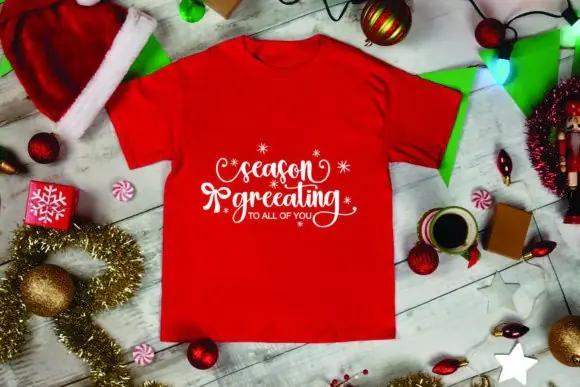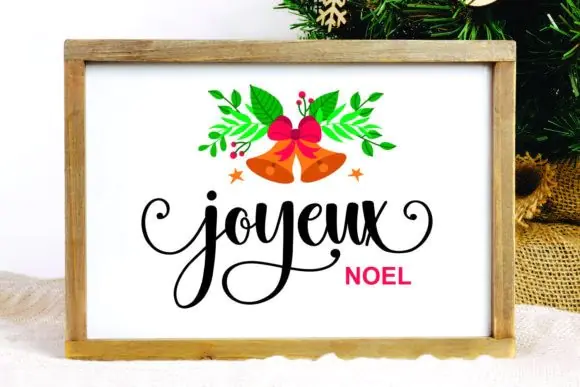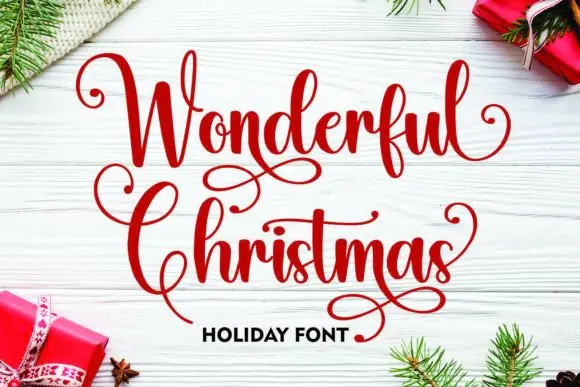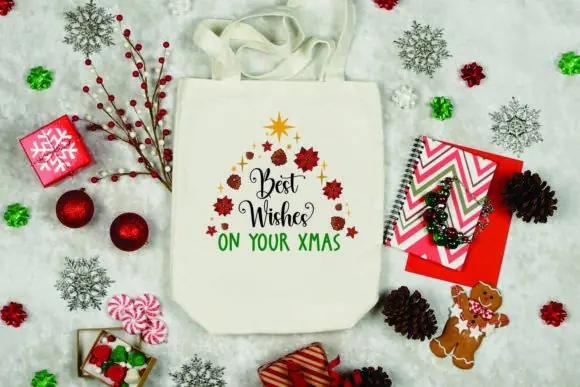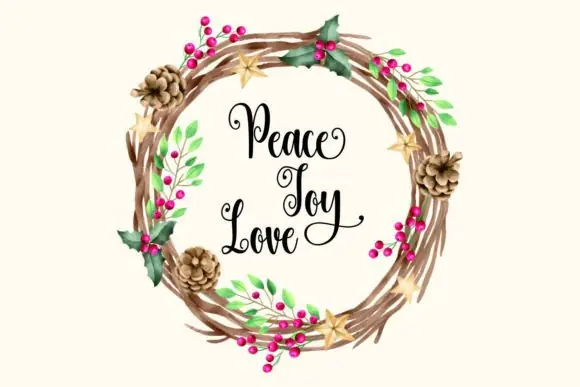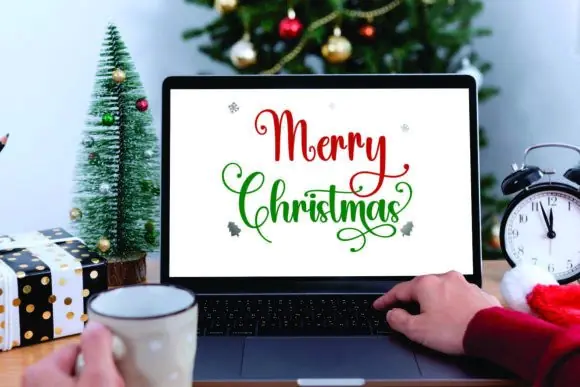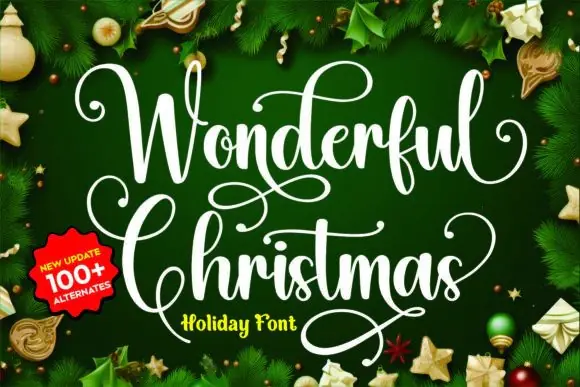
Wonderful Christmas Handwritten Font | Elegant Script Typeface with Glyphs & Swashes for Wedding Invitations, Greeting Cards, Quotes, Logos, Business Cards & Holiday Designs
Create charming, elegant, and beautifully handwritten designs with Wonderful Christmas Font, a graceful script-style typeface designed to bring warmth, personality, and a refined handmade touch to your creative projects. With its smooth handwritten flow and stylish decorative character, this font is perfect for designs that need a romantic, festive, elegant, or personal feel.
Wonderful Christmas Font is ideal for designers, crafters, stationery creators, invitation makers, branding designers, small business owners, print-on-demand sellers, and digital product creators who want a versatile handwritten font for premium-looking designs. It works beautifully for wedding invitations, thank you cards, quotes, greeting cards, logos, business cards, holiday designs, Christmas cards, gift tags, social media posts, stickers, labels, packaging, wall art, and printable crafts.
This font is also PUA encoded, which means you can easily access all available glyphs and swashes to create more decorative, customized, and professional typography. These extra characters are useful for elegant name designs, stylish wordmarks, romantic quotes, festive lettering, and polished branding layouts.
Whether you are creating a Christmas greeting card, wedding stationery set, thank you note, elegant logo, holiday quote design, or handmade-style printable product, Wonderful Christmas Font adds a beautiful handwritten charm to every project.
• Christmas cards
• Wedding invitations
• Thank you cards
• Greeting cards
• Quote designs
• Logos and branding
• Business cards
• Gift tags
• Stickers and labels
• Product packaging
• Social media posts
• Wall art prints
• Holiday stationery
• Printable crafts
• Elegant handwritten designs
Key Style Features
• Charming handwritten font style
• Elegant and graceful appearance
• Perfect for Christmas and holiday designs
• Great for invitations, cards, and quotes
• PUA encoded characters
• Easy access to glyphs and swashes
• Suitable for logos and business cards
• Adds a refined personal touch to typography